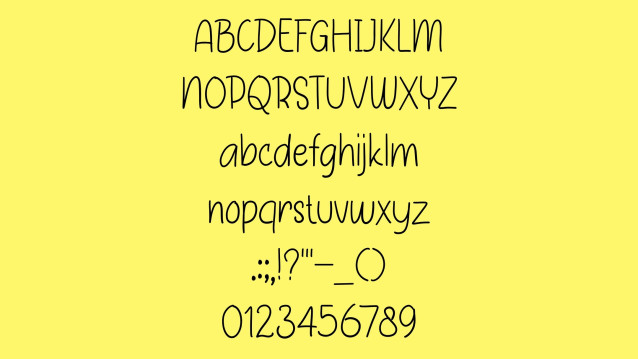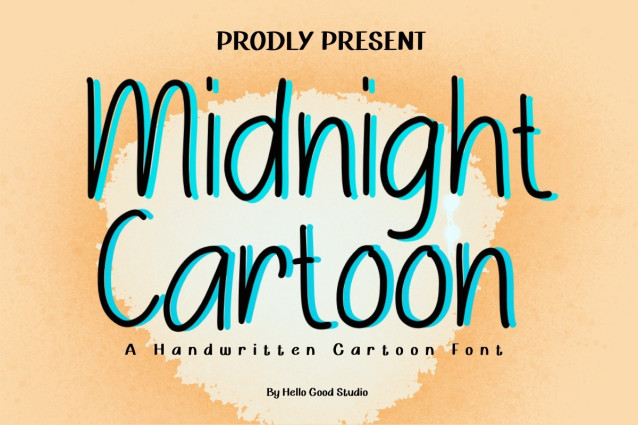
Midnight Cartoon Font
Midnight Cartoon Font a sweet and friendly handwritten font. Cute and fun, this font is ideal for writing wedding invitations, cards, or any other design that might need a fun touch!